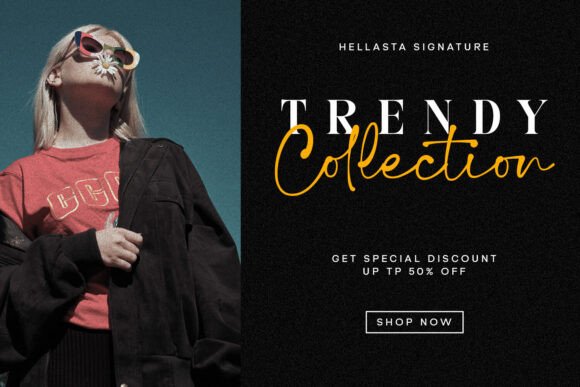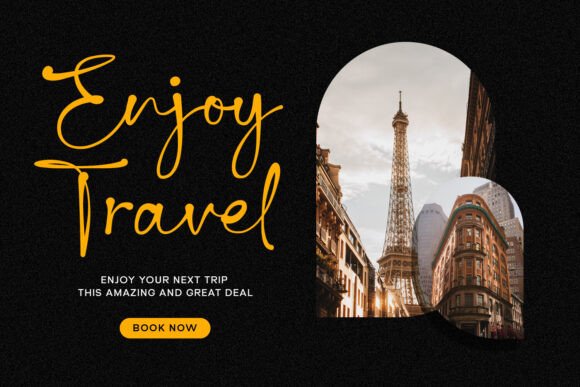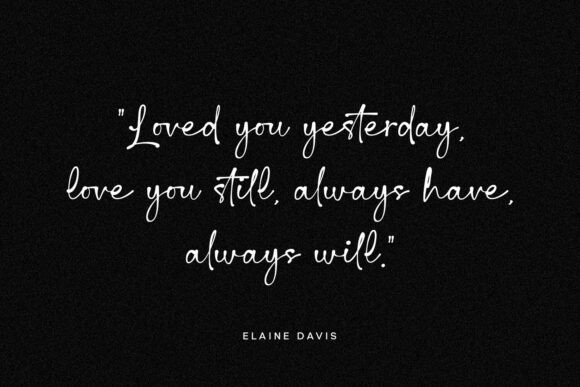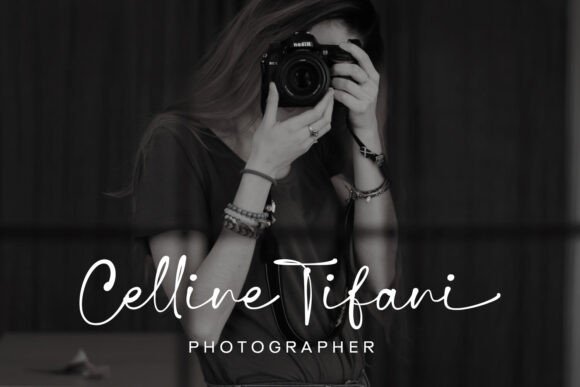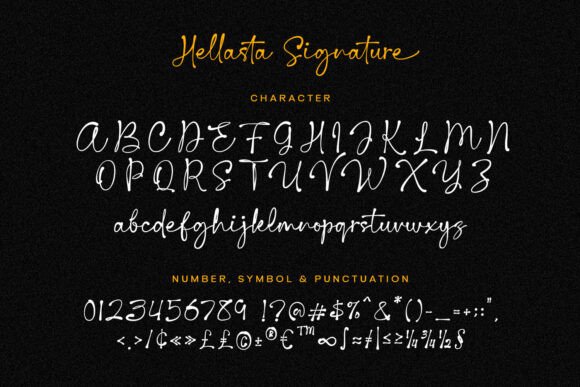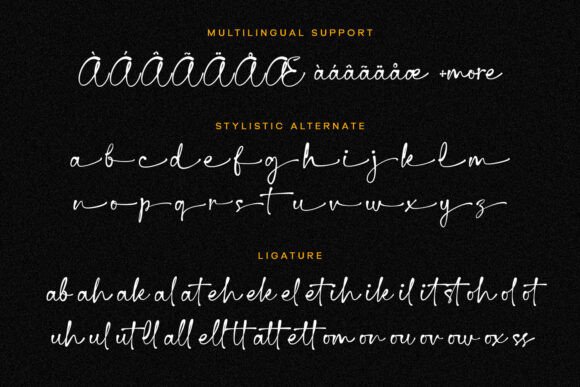
Give Your Designs a Personal Touch
The moment you pick up a pen and start sketching out your ideas is one of the most magical experiences for any designer. There’s something special about bringing your creative vision to life, and the right font can make all the difference. That’s where the Hellasta Signature Font comes in – a beautiful, organically handwritten typeface designed to add a touch of personality to your work.
This versatile font is perfect for branding projects, unique signatures, and eye-catching product packaging, and its immaculate multilingual support makes it a valuable tool for designers working with diverse clients. With Hellasta Signature Font, you can bring a sense of character and authenticity to your designs, making them truly unforgettable.
Hellasta Signature Font Key Features
- Font Family: Hellasta Signature Font
- Unique Characteristics: Hand-drawn style with bold and elegant lines, ideal for signatures, logos, and branding materials
- Font Style: Includes multiple font styles such as Regular, Italic, Bold, and Bold Italic
Designer Review: Hellasta Signature Font
I recently had the chance to work with the Hellasta Signature Font, and I must say it’s an intriguing addition to any design project. Here’s my honest take on this font.
- ✨ Unique and Bold Design: The Hellasta Signature Font is certainly a statement maker. Its bold and intricate design is perfect for adding a touch of sophistication to any design project.
- ✨ Wide Character Set: This font has a comprehensive character set, including numerals, symbols, and special characters, making it a great choice for projects that require a wide range of typography.
- ✨ Great for Titles and Headings: The Hellasta Signature Font is ideal for titles, headings, and other text elements that require a bold and eye-catching appearance.
- ⚠️ Limited Legibility: While the font is visually striking, its bold design can make it difficult to read at smaller font sizes, especially in body text.
- ⚠️ Not Suitable for Body Text: Due to its complexity and lack of legibility, the Hellasta Signature Font is not ideal for large blocks of body text or paragraphs.
Overall, the Hellasta Signature Font is a great choice for designers who want to add a touch of drama and sophistication to their projects. However, it’s essential to use it judiciously and in the right context to avoid readability issues.
Tips for Getting the Most Out of Hellasta Signature Font
Use Hellasta Signature Font to add a touch of elegance and sophistication to your designs. Pair it with bold, bright colors to create a striking contrast. Experiment with different font sizes and styles to add visual interest to your text.
Hellasta Signature Font is perfect for creating logos, branding materials, and marketing collateral. It’s also great for designing invitations, menus, and other promotional materials that require a touch of luxury and sophistication.
Alternatives to Hellasta Signature Font
Great Vibes is a modern, elegant font suitable for titles, headings, and body text. It features a unique blend of art deco and script styles, making it perfect for creating a sophisticated and eye-catching design.
Great Vibes is a better choice when you need a more polished and refined look, whereas Hellasta Signature Font has a more playful and casual tone.
Pacifico is a beautiful, handwritten font ideal for creating a relaxed and beachy atmosphere. It’s perfect for titles, quotes, and other text elements where you want to add a touch of warmth and personality.
Pacifico is a better choice when you need a font that conveys a sense of calmness and serenity, whereas Hellasta Signature Font is more energetic and playful.
Rock Salt Font
Rock Salt is a fun, distressed font perfect for creating a rugged and edgy look. It’s ideal for titles, headings, and body text where you want to add a touch of grit and attitude.